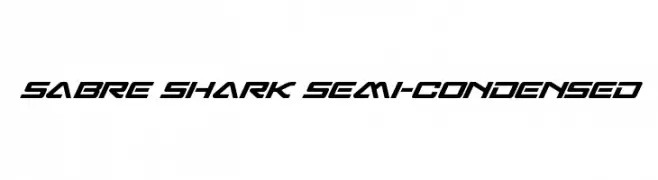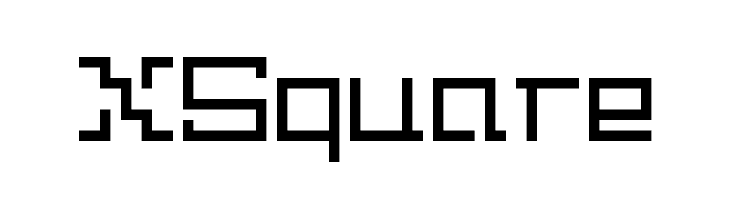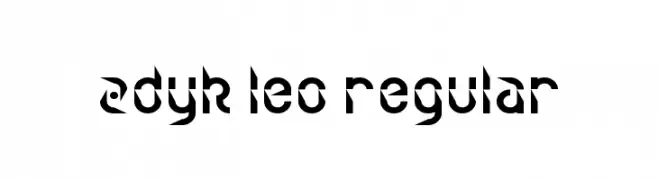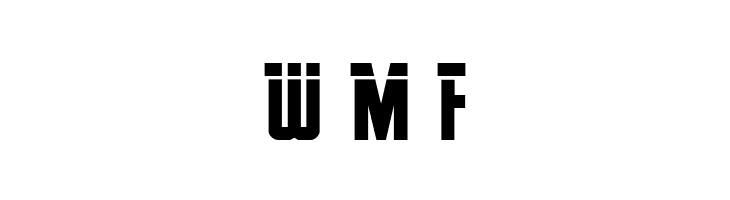
A geometric, modular font with a square, digital appearance.
Bold, playful orchestra and music-themed icon set in silhouette style.
A modern sans-serif font with an oblique slant, offering a sleek and dynamic look.
A sleek, monospaced, light italic font ideal for coding and technical applications.
A playful font featuring cartoonish animal illustrations with bold outlines.
A whimsical and elegant font with decorative swirls and curls.
A bold, expressive script font with flowing, cursive letters.
A bold, geometric font with a modern, industrial stencil-like design.
A futuristic, condensed, bold italic font with sharp, angular design.
An elegant monoline italic typeface with a refined and fluid appearance.